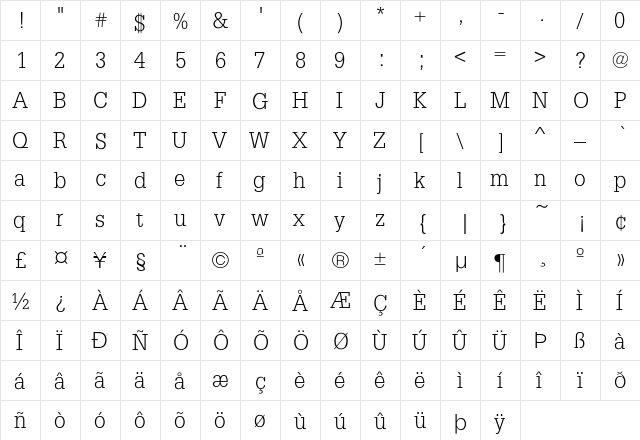
Dreissler Regular
Design Context for Dreissler Typeface
Dreissler is a composed and adaptable typeface that performs quietly and consistently across a wide range of design contexts.